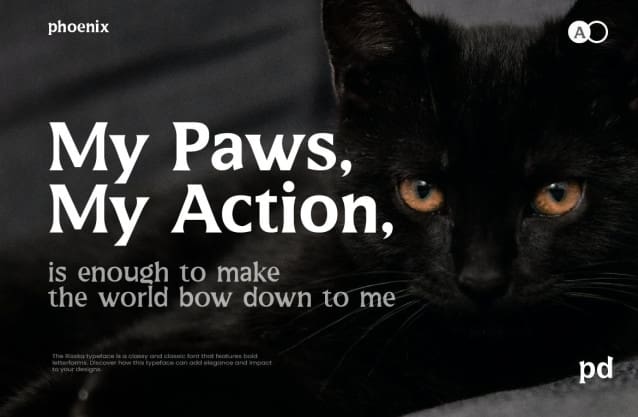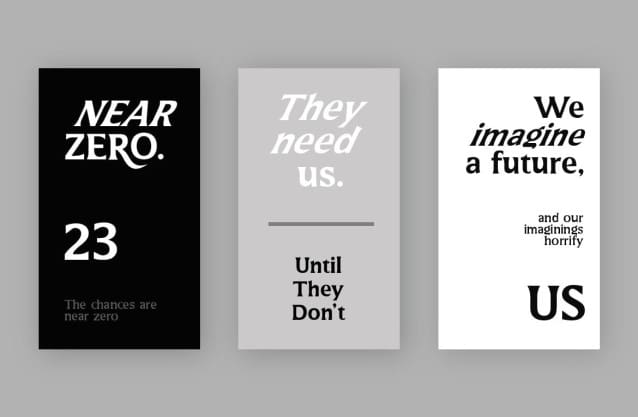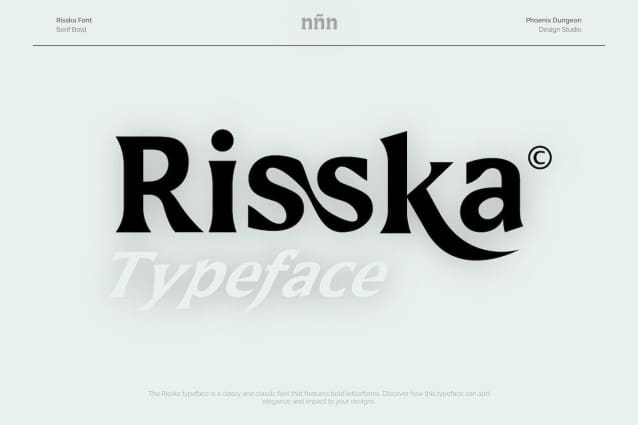
Risska Font
Risska Font is a classic and elegant font that features bold letters. Discover how this typeface can add elegance and impact to your designs